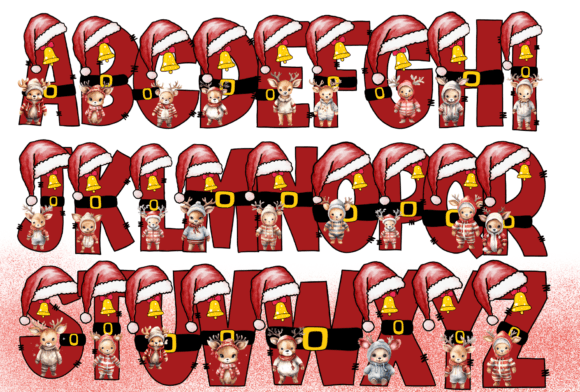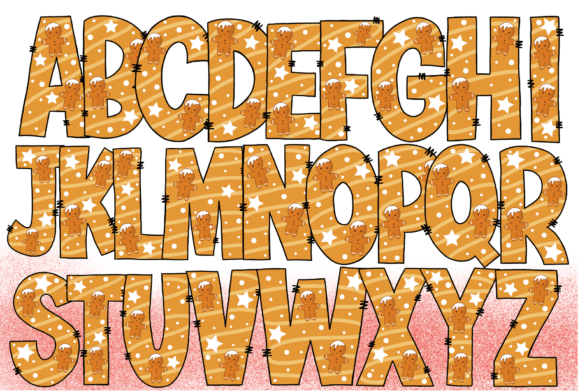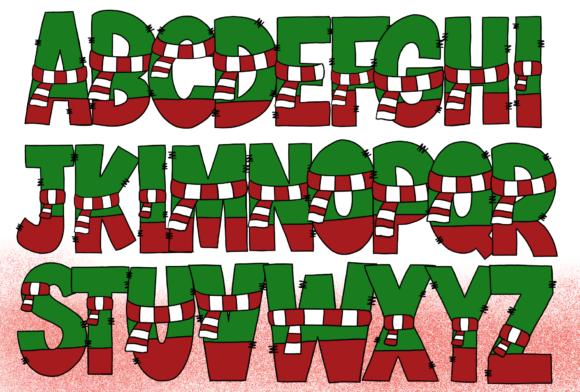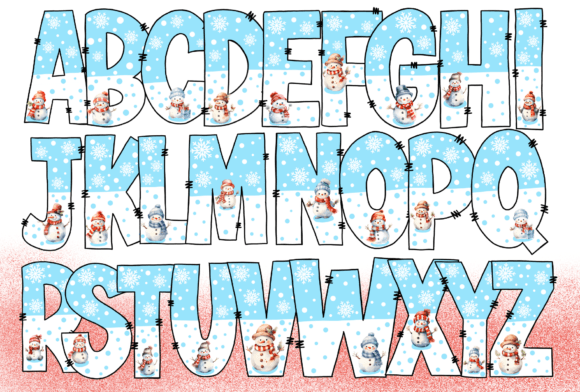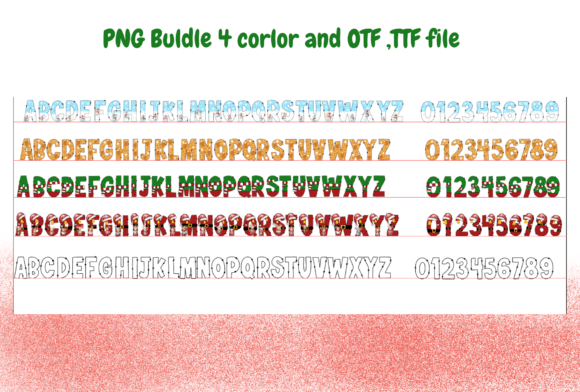
The Magic of Christmas Font
It’s that time of the year when creativity knows no bounds, and the festive spirit takes over. As you sit down to plan your holiday projects, you find yourself overwhelmed by the endless possibilities. You want to add a touch of magic to your designs, something that screams ‘festive’ and ‘fun’. And then, it hits you – the perfect font to bring your Christmas projects to life.
Meet the Christmas Font, a delightful color font that’s sure to add a dash of cheer to your designs. This fun and playful font is perfect for adding a personal touch to your festive projects, from greeting cards to social media posts. For designers, the Christmas Font is a valuable addition to their toolkit, offering endless possibilities for creative expression.
Key Features of Christmas Font
- Unique Characteristics: Christmas Font features a festive and playful design, with intricate details and ornaments that evoke the spirit of the holiday season.
Review of Christmas Font
I have to say, I was initially drawn to the Christmas Font due to its festive and fun vibe ✨. The font’s use of bright, bold colors and playful typography is perfect for holiday-themed designs. The included ornaments and decorations are also a nice touch, adding an extra layer of visual interest.
Here are some specific things that work well:
- Eye-catching and festive design ✨
- Included ornaments and decorations add visual interest
- Playful typography is perfect for holiday-themed designs
However, there are some limitations to consider ⚠️:
- Font may be too loud or overpowering for more subtle designs
- Limited character set and language support
- Some ornaments and decorations may be too small or hard to read
Overall, I would say that the Christmas Font is a great choice for anyone looking to add a festive touch to their designs. While it may not be suitable for every project, it’s perfect for holiday-themed designs, party invitations, or social media graphics.
Christmas Font is commonly used in holiday-themed designs, such as:
- Invitations and party decorations
- Gift tags and wrapping paper
- Holiday cards and letters
- Menus and signage for holiday events
Tips for Getting the Most Out of Christmas Font
For best results, use Christmas Font in combination with other holiday-themed elements, such as snowflakes, holly leaves, or candy canes. Experiment with different font styles and sizes to create a unique and festive look. Don’t be afraid to add a pop of color with bright red or green accents.